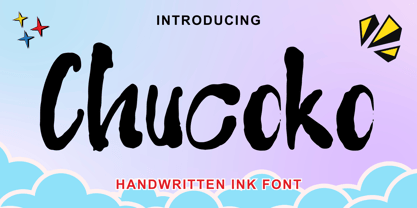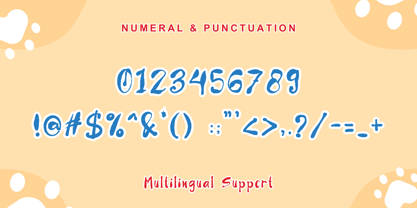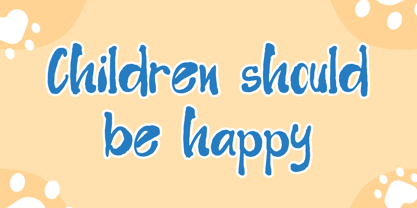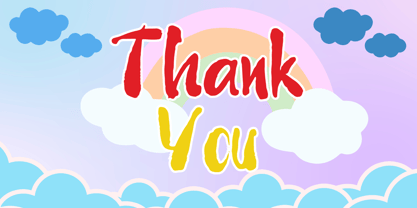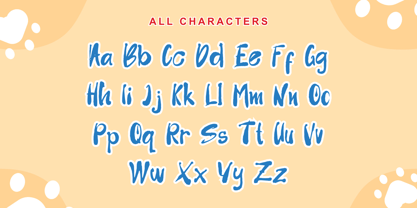
Chucoko
by Andrey Font Design
The Chucoko Font Family was designed by Stephanus Prabowo and published by Andrey Font Design. Chucoko contains 2 styles and family package options. More about this family
Introducing a compelling handwritten font touched by the charm of nature – an artisanal accessory for your design toolkit. This beautiful, organic font has a knack for adding a natural elegance to any design detail. From crafting an ornate invitation to designing a captivating book cover, the level of finesse it adds is nothing short of perfection.
One of its standout features is its PUA encoding, offering you full accessibility to an exciting array of glyphs. This font is a sure-fire way to bring your design ideas to life with an authentic and alluring touch.
Designers: Stephanus Prabowo
Foundry: Andrey Font Design